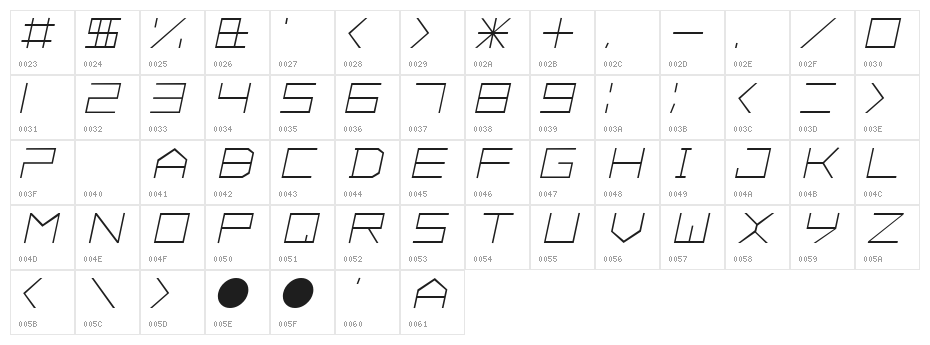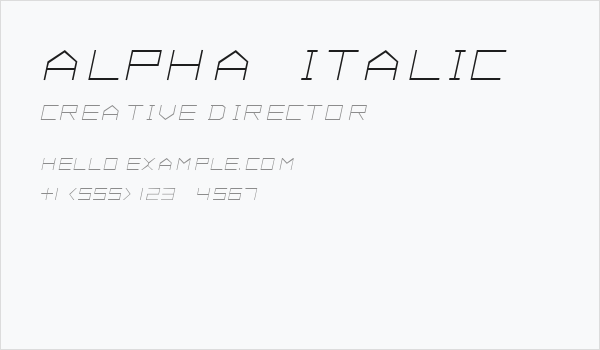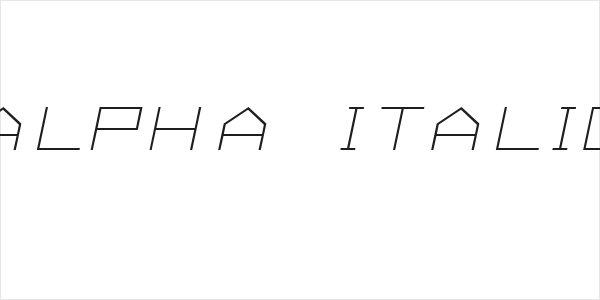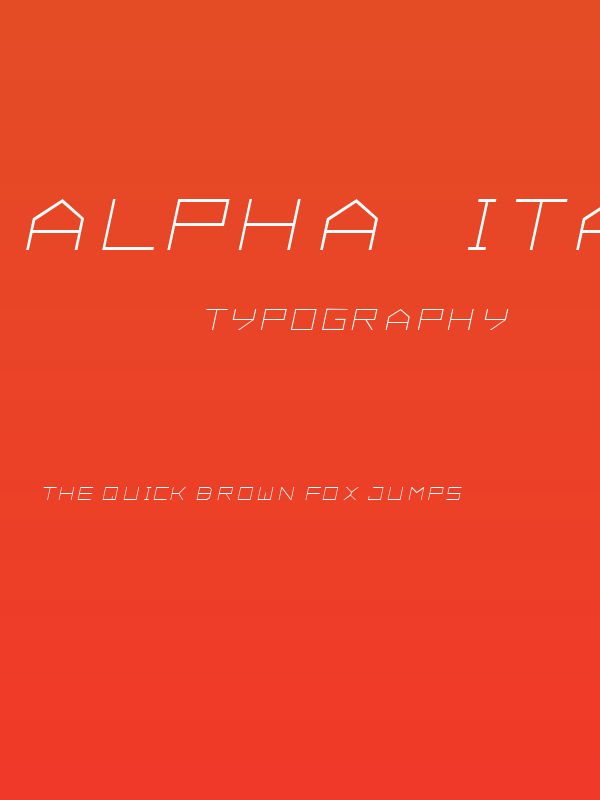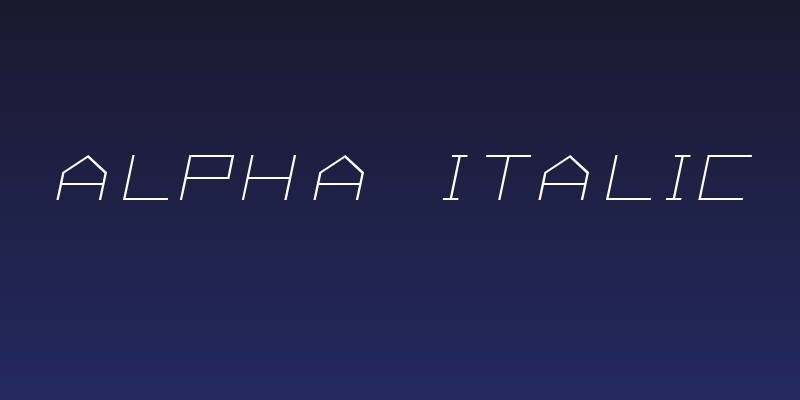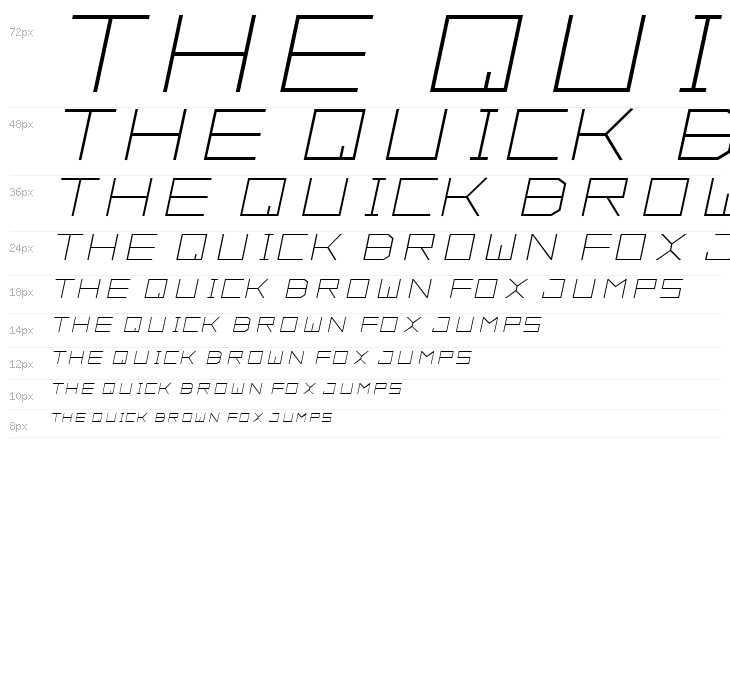
ALPHA Italic Font
ALPHA Italic Description
This font features a geometric and angular design, characterized by its sharp edges and clean lines. The letters are constructed with a futuristic and technical aesthetic, giving a sense of precision and modernity. The uppercase and lowercase letters maintain a consistent style, with a slight slant that adds a dynamic feel. The numerals and special characters follow the same design principles, ensuring uniformity across all glyphs. The overall appearance is sleek and minimalistic, making it suitable for projects that require a contemporary and innovative look.
| Use Case | Headlines, Logos, Digital interfaces |
| Proposed Projects | Ideal for tech branding, modern posters, digital interfaces, and sci-fi themed designs. |